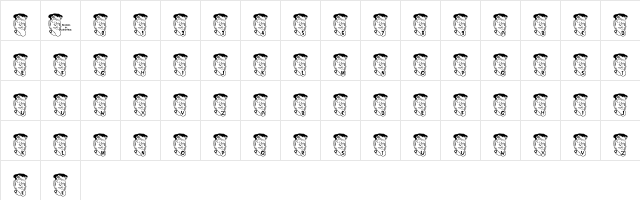
LCR FrankenFright Regular
Design Context for LCR FrankenFright Typeface
LCR FrankenFright is a composed and adaptable typeface that performs quietly and consistently across a wide range of design contexts.